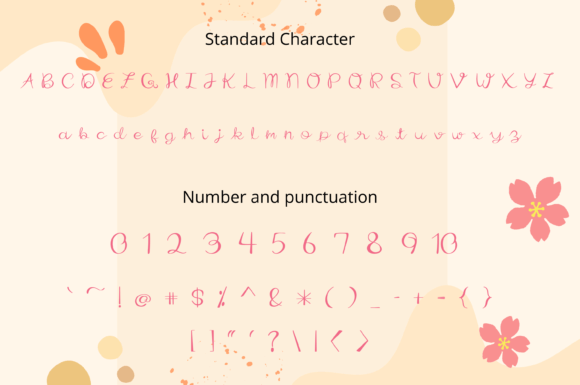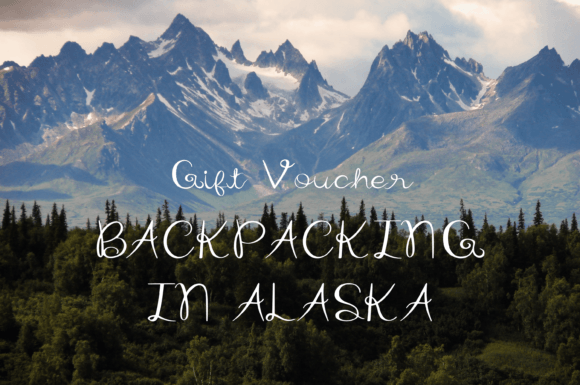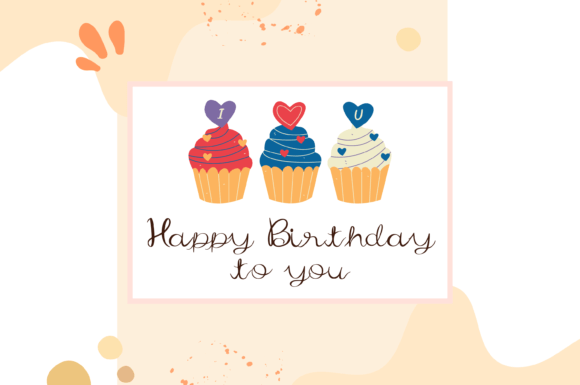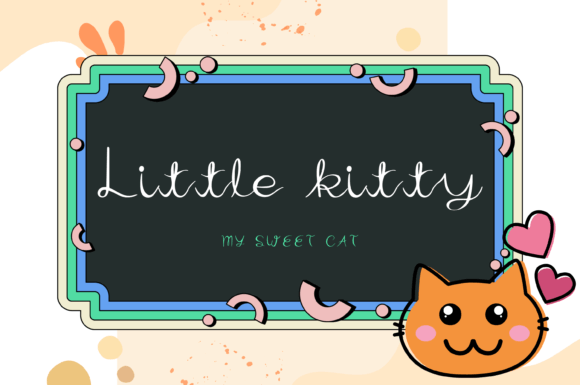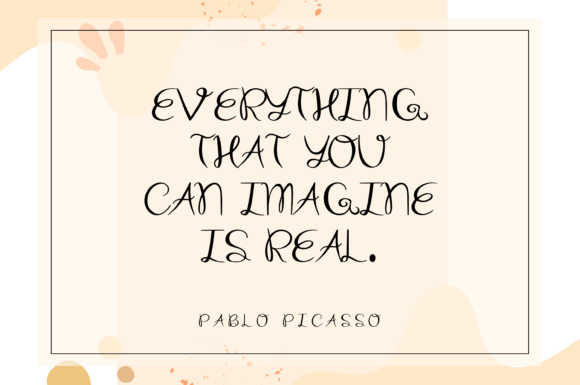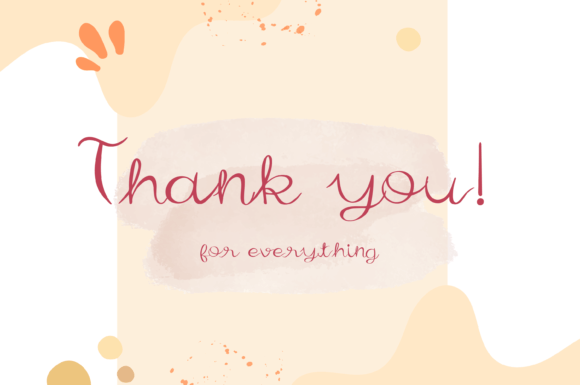
Unlock the Magic of Whimsical Design with Apricot Sweet Font
Have you ever been brainstorming a new creative project, flipping through your favorite design resources, and suddenly, a spark of inspiration hits? That’s exactly what happened when I stumbled upon the Apricot Sweet Font. Its whimsical and clean handwritten style immediately captured my attention, and I knew I had to learn more.
Apricot Sweet Font is a versatile and charming font that can elevate any design project. Whether you’re working on a branding campaign, creating a wedding invitation, or crafting a social media post, this font is sure to make your designs stand out. Its unique style and playful feel make it an invaluable addition to any designer’s toolkit, allowing you to add a touch of personality to your work.
Apricot Sweet Font Key Features
- Font Style: Script Font with a sweet and playful touch, ideal for creating a whimsical and feminine atmosphere.
- Character Set: Supports a wide range of languages, including Latin, Cyrillic, and Greek alphabets, making it suitable for multilingual projects.
- Unique Characteristics: Features a unique combination of swashes, ligatures, and flourishes that add a touch of elegance and sophistication to any design.
Apricot Sweet Font Review
As a designer, I was excited to dive into the Apricot Sweet Font and see what it had to offer. Overall, I was pleasantly surprised by its charm and potential for use in various design projects.
- The Apricot Sweet Font has a unique, vintage-inspired feel that sets it apart from more common fonts.
- The font’s rounded edges and soft curves create a warm, inviting atmosphere that’s perfect for designs that need a touch of personality.
- The font is highly legible, even at smaller font sizes, making it suitable for a wide range of applications.
- The font’s limited character set may be a concern for designers who need to work with non-English text or require a wider range of symbols and glyphs.
- The font’s bold weight may not be as robust as some designers might prefer, potentially limiting its use in headings and titles.
Overall, I’d say the Apricot Sweet Font is a great choice for designers looking to add a touch of whimsy and personality to their projects. While it may have some limitations, its unique feel and high legibility make it a solid addition to any design toolkit.
Tips for Getting the Most Out of the Apricot Sweet Font
For optimal results, use the Apricot Sweet Font in conjunction with bright and pastel colors. Avoid using it in overly complex or busy designs, as it can get lost in the background. Experiment with different font sizes and styles to create visual interest.
The Apricot Sweet Font is ideal for:
- Baby shower invitations and decorations
- Children’s book illustrations and
Alternatives to Apricot Sweet Font
The Great Vibes Font is a beautiful, elegant script font that is perfect for creating a unique and eye-catching design. It is ideal for use in invitations, wedding cards, and other special occasion materials. Compared to Apricot Sweet Font, Great Vibes Font has a more sophisticated and refined look, making it suitable for more formal events.
The Pacifico Font is a modern, cursive script font that is perfect for creating a relaxed and casual atmosphere. It is ideal for use in advertising, social media graphics, and other digital materials. Compared to Apricot Sweet Font, Pacifico Font has a more laid-back and beachy vibe, making it suitable for summer-themed designs and outdoor events.